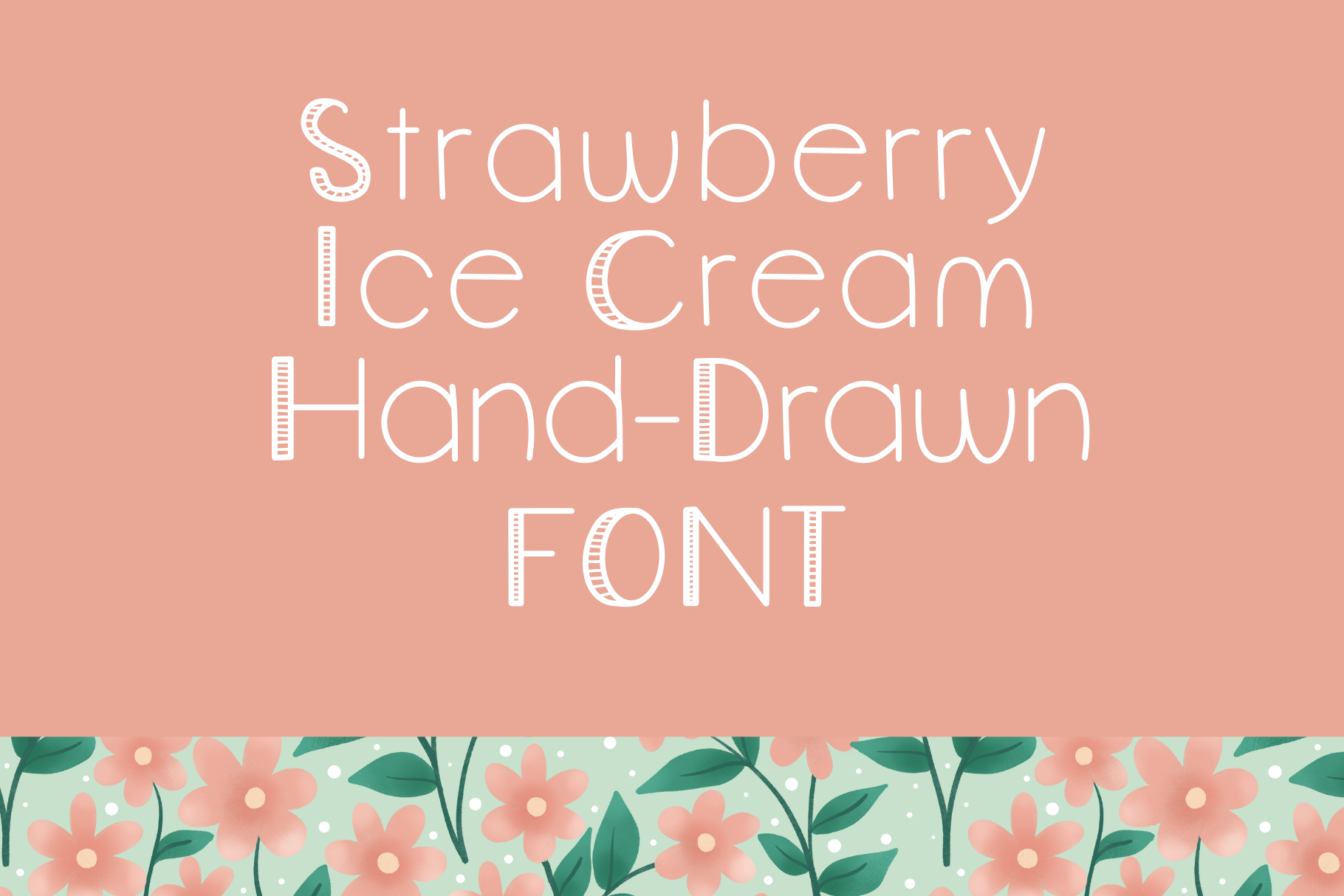
Strawberry Ice Cream Display Font
Strawberry Ice Cream Display Font - Perfect for invitations, print on demand products, t-shirt design, website design, and more. This includes upper case, lower case, numbers, and symbols. Currently supports the English language.